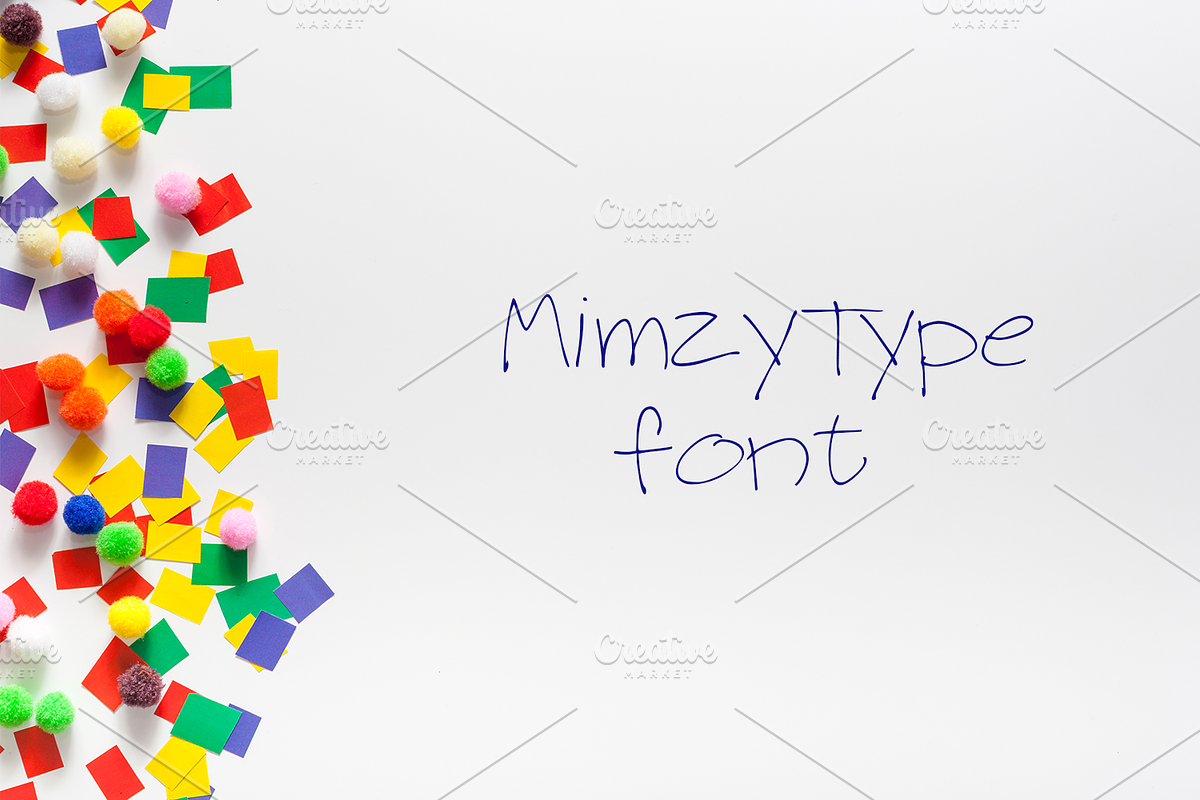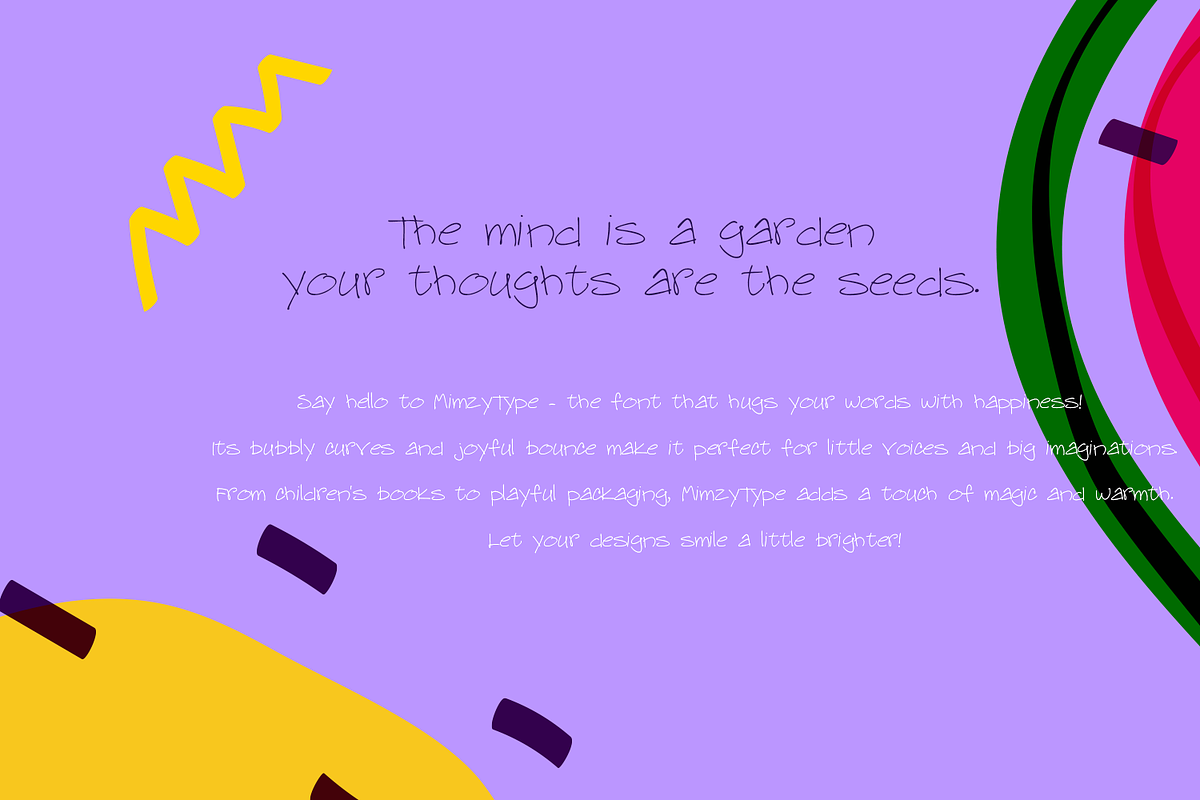
Say hello to MimzyType – the font that hugs your words with happiness!
Its bubbly curves and joyful bounce make it perfect for little voices and big imaginations.
From children’s books to playful packaging, MimzyType adds a touch of magic and warmth.
Let your designs smile a little brighter!